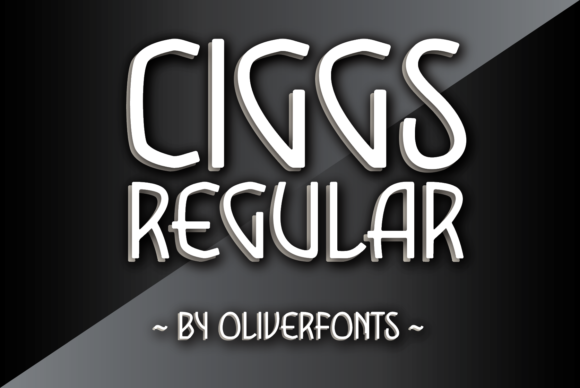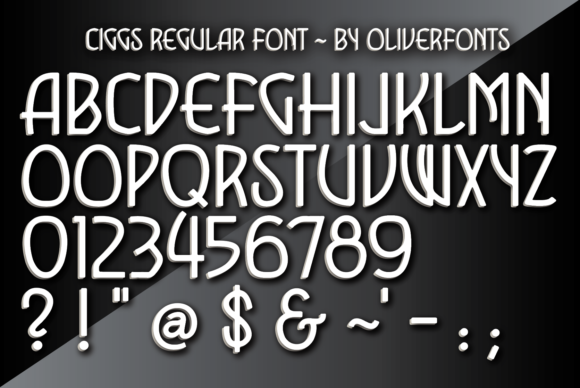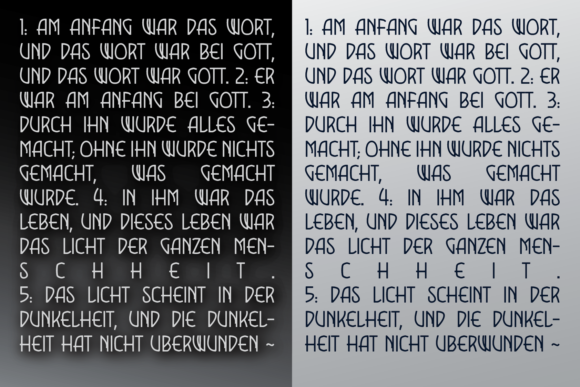
About Ciggs Font
Ciggs is a cool and organic looking display font. No matter the topic, this font will be an incredibly asset to your fonts’ library, as it has the potential to elevate any creation.